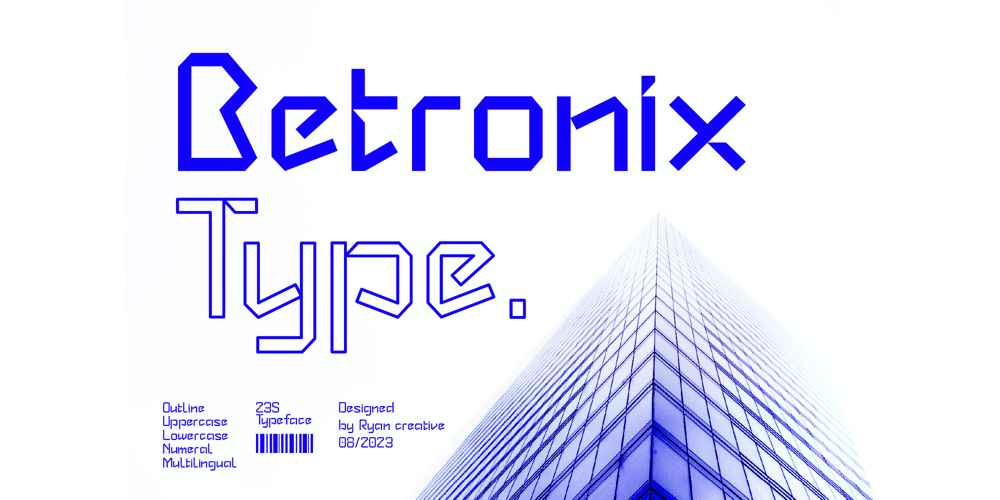
Betronix
Betronix font
Betronix Font Family was designed by ryan creative and published by ryan creative. Betronix contains 2 styles and family package options. Betronix is ​​a tech typeface designed by creative Ryan that embodies a strong and modern vision approach, formal rigor, and shows a variety of designed characters including glyphs as well as depicting graphics in a modern, powerfully constructive anatomical way.FEATURES;-Uppercase Lowercase-Supports Foreign Languages, Numbers and Punctuation.-Regular & Outline-Work on PC.Thanks for visiting, have a nice day 😉